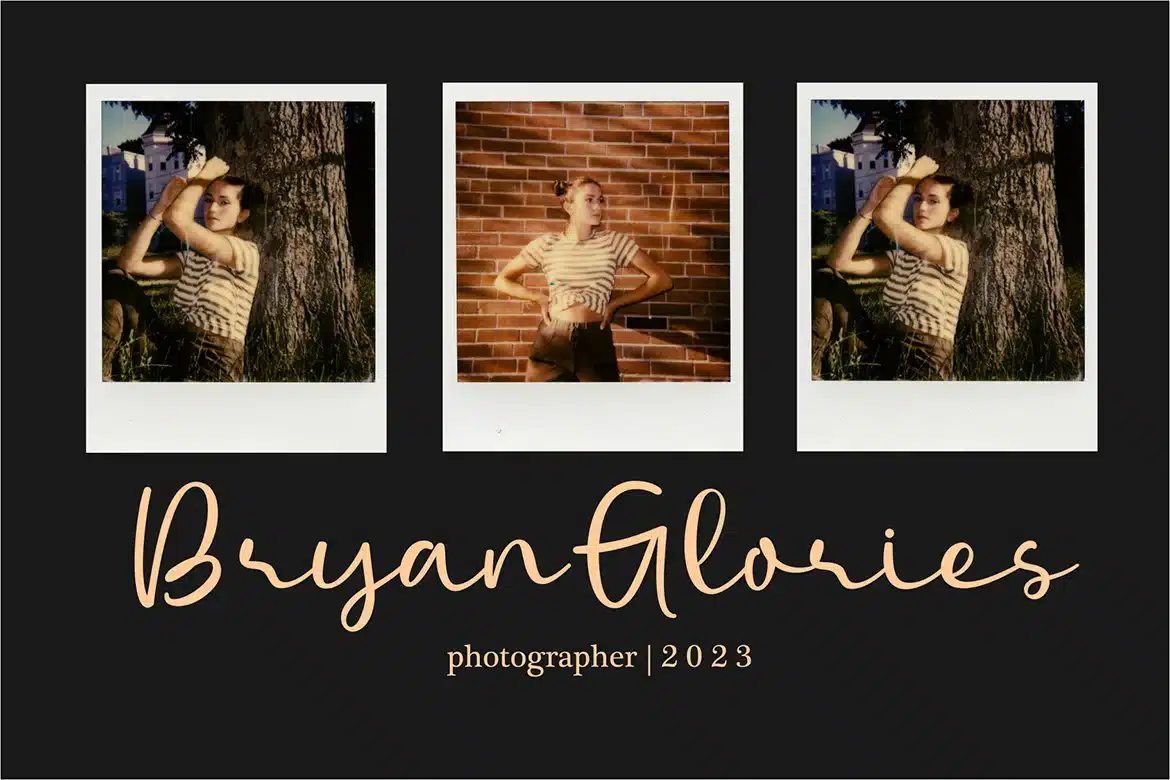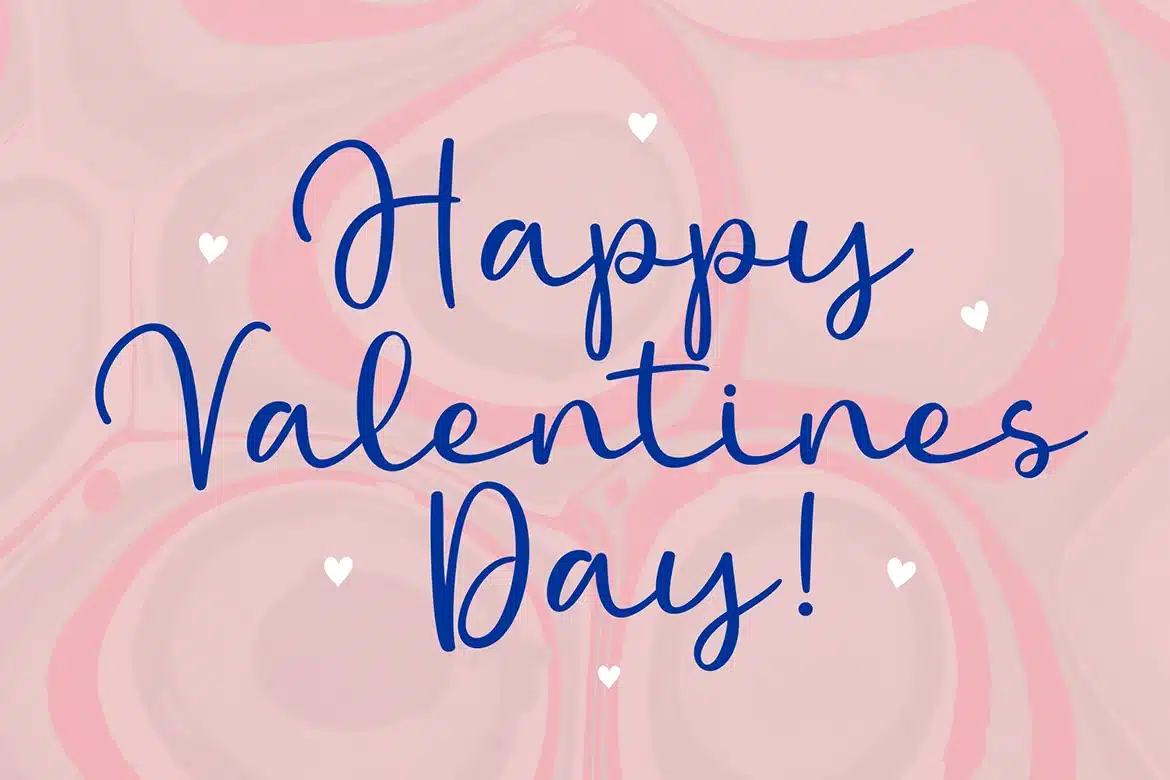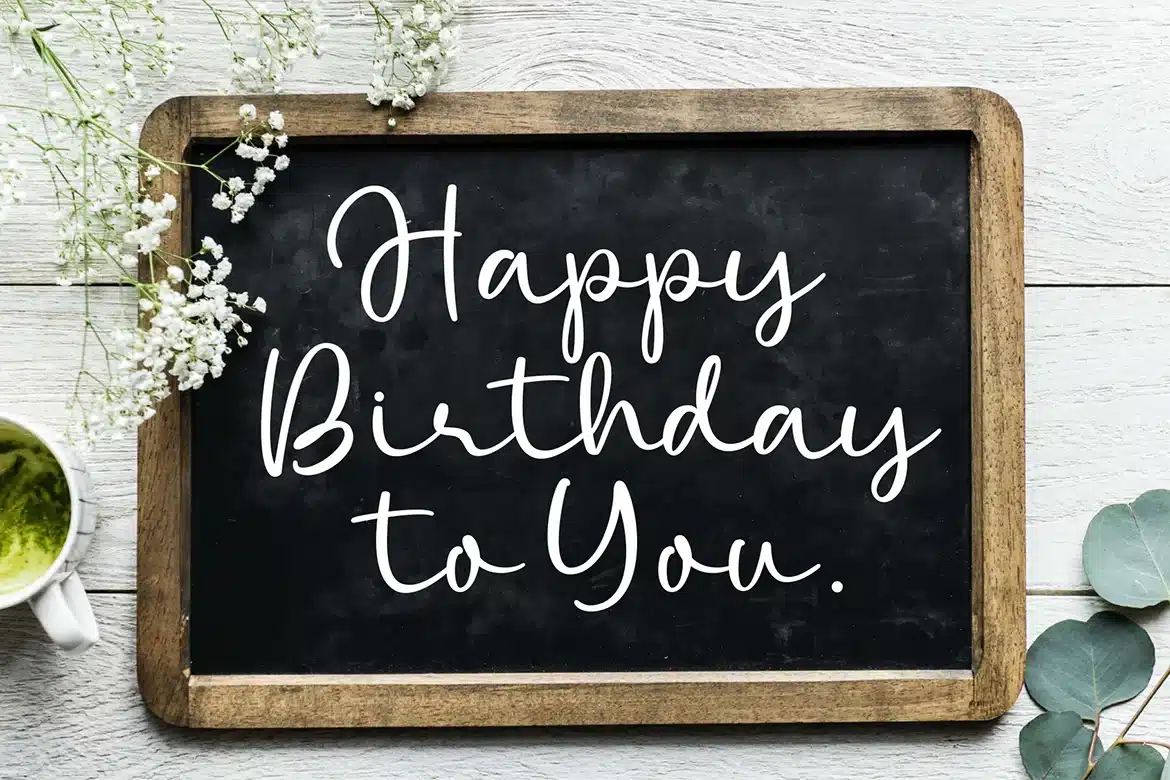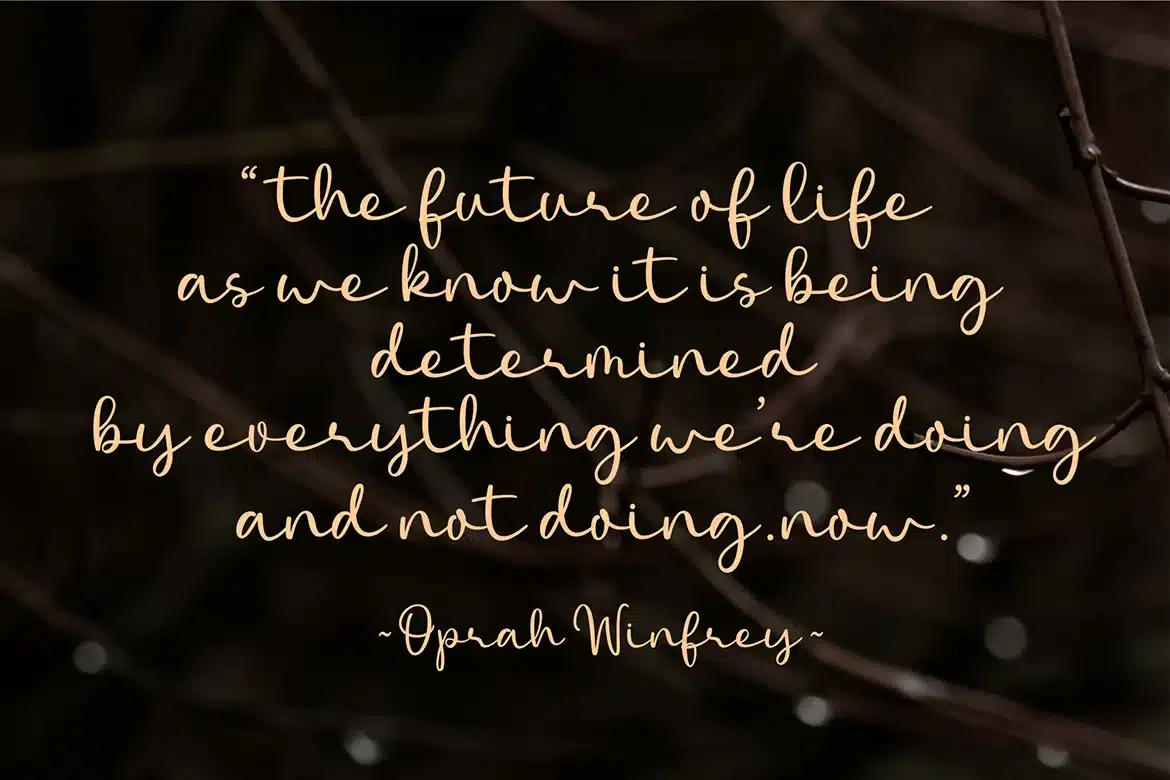
Broken Hearts – Elegant Calligraphy Script Font
Introducing Broken Hearts, a captivating modern calligraphy font designed to elevate your creative expressions, especially perfect for Valentine's Day cards and romantic projects. With an extensive character set of glyphs, this font is a versatile toolkit for crafting heartfelt messages and enchanting designs.
Font Features :
Uppercase Lowercase numeric & Multilingual support Ligatures: Enhance the fluidity of your writing with ligatures that create seamless connections between letters, ensuring a smooth and graceful appearance.